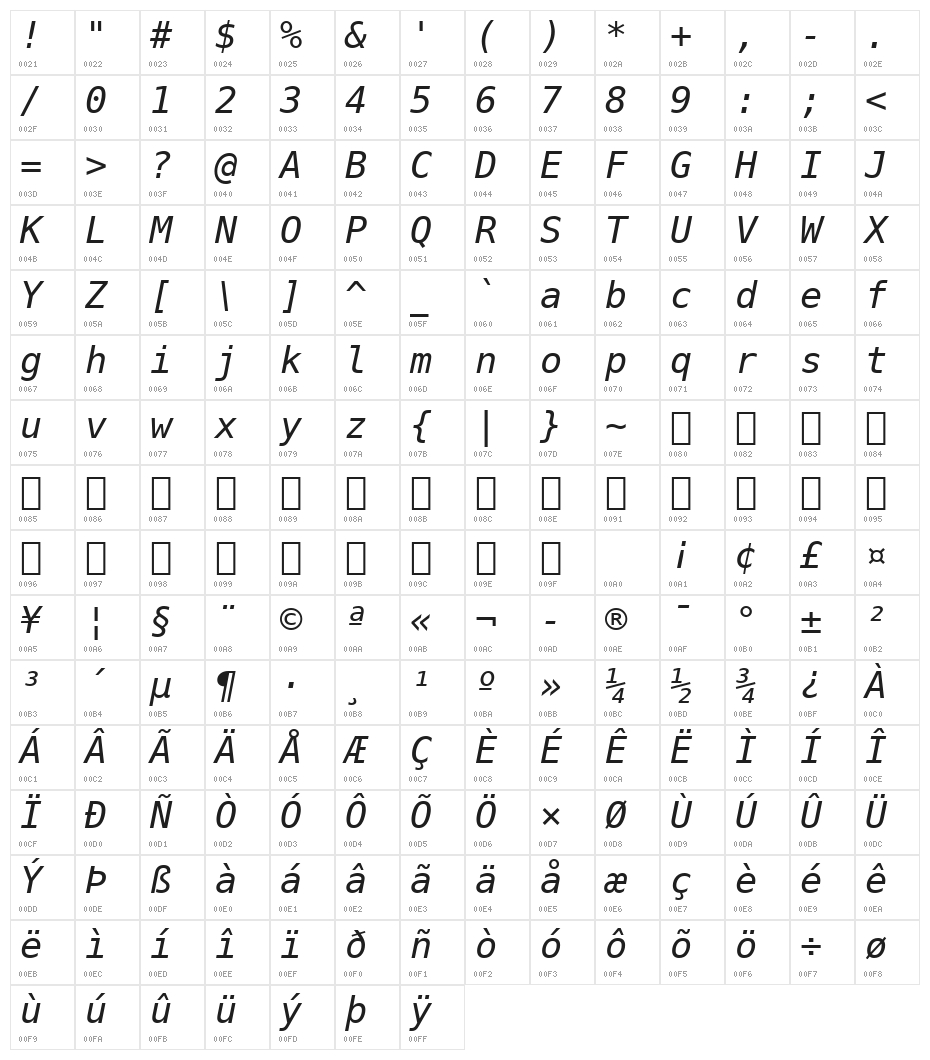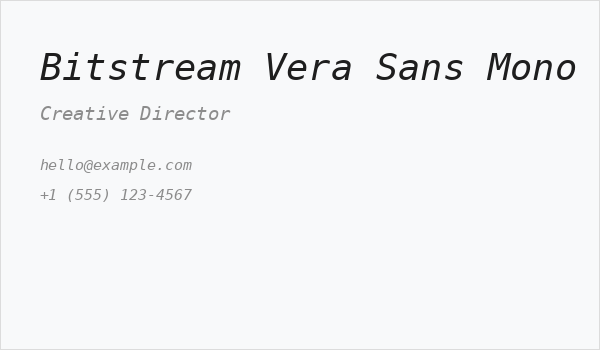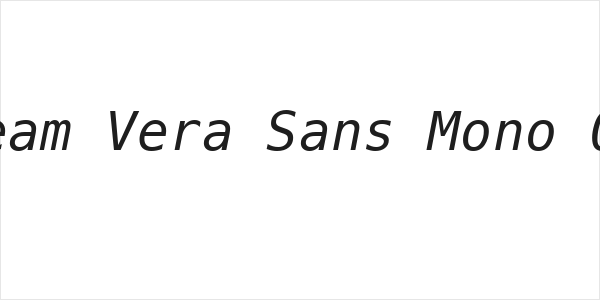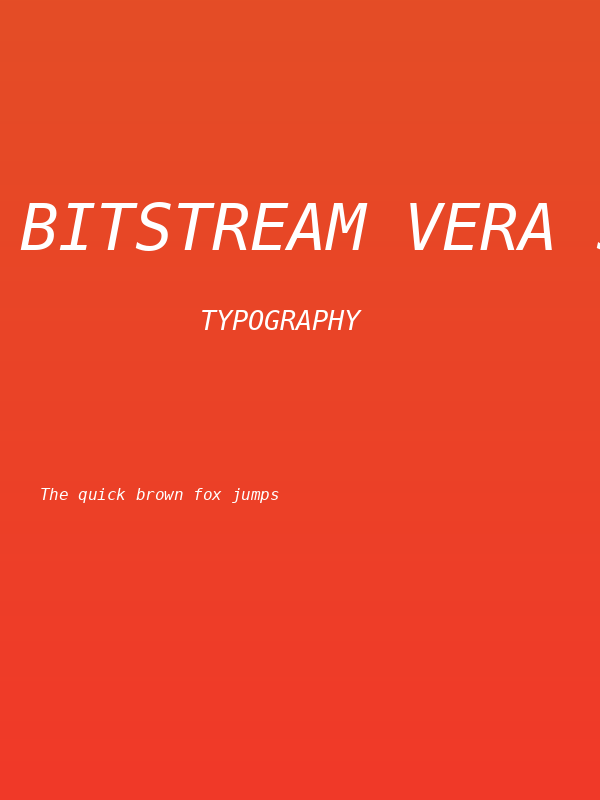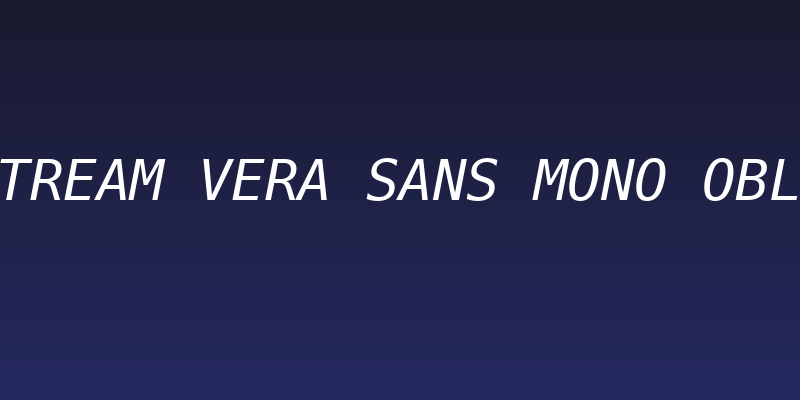
Bitstream Vera Sans Mono Oblique Font
Bitstream Vera Sans Mono Oblique Description
This font features a clean and modern design with a monospaced structure, ensuring each character occupies the same width. The oblique style adds a subtle slant, giving it a dynamic and contemporary feel. The characters are well-defined with a medium stroke contrast, making it highly legible. The spacing between characters is consistent, providing a balanced and orderly appearance. This font is versatile, suitable for both digital and print media, and works well in coding environments due to its clarity and uniformity.
| Use Case | Headlines, Body text, Coding |
| Proposed Projects | Ideal for coding, technical documents, and any project requiring clear, uniform text presentation. |